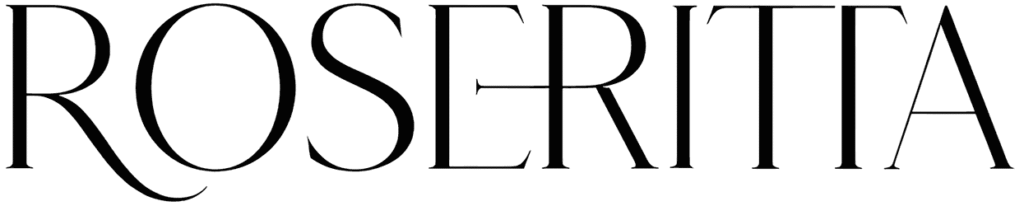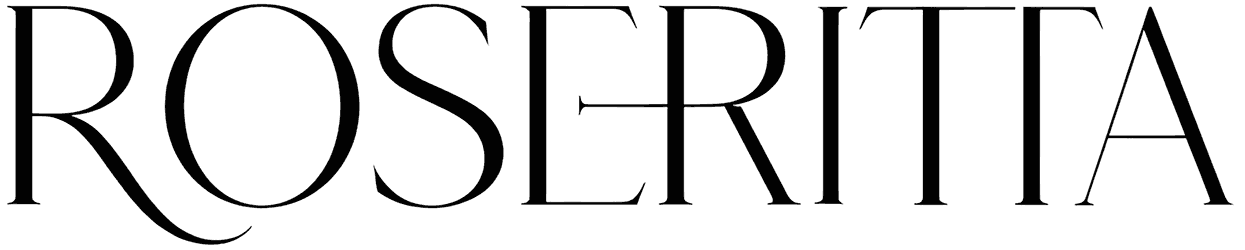
Roseritta Font
Roseritta is a classic Roman font that uses all your creativity to make a design stand out. This luxury serif font has a serious appearance at first glance.
But if you spice it up with your own mental ideas, it can be well displayed in informal projects. Using this font, your hand is completely open to expanding any changes, and you can design creative covers for books of any genre, even without small letters.